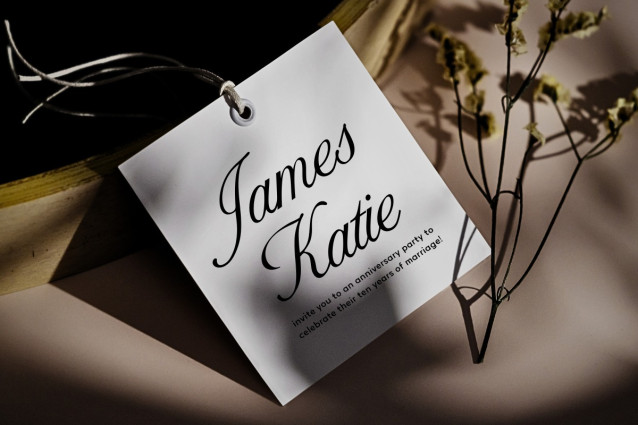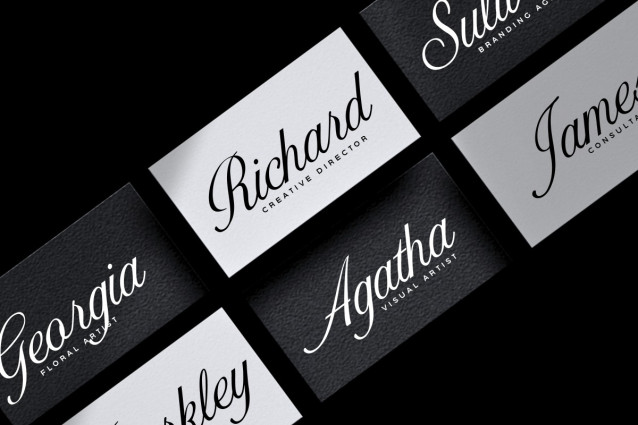
Australian Mirages Font
Australian Mirages – Modern Calligraphy Font is a beautifully designed script typeface that brings elegance, grace, and a modern touch to handwritten calligraphy. With its fluid strokes and artistic curves, this font captures both classic charm and contemporary style.
The font includes two versatile weights: Regular and Bold, making it suitable for both subtle and bold typographic expressions. It also features a rich set of alternates and ligatures, giving you the creative freedom to design personalized and sophisticated typography with ease.